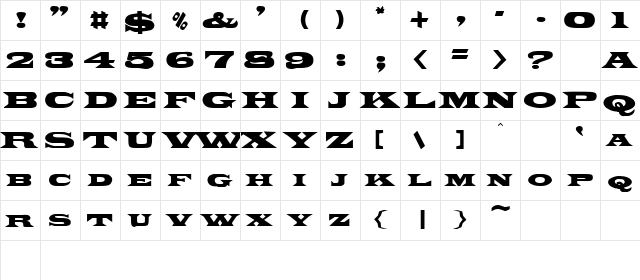
Nomen Bold
Design Context for Nomen Typeface
Nomen offers clean, dependable letterforms without strong stylistic allegiance, making it a practical choice for designers who need flexibility. Its bold stroke weight gives it real presence on the page.